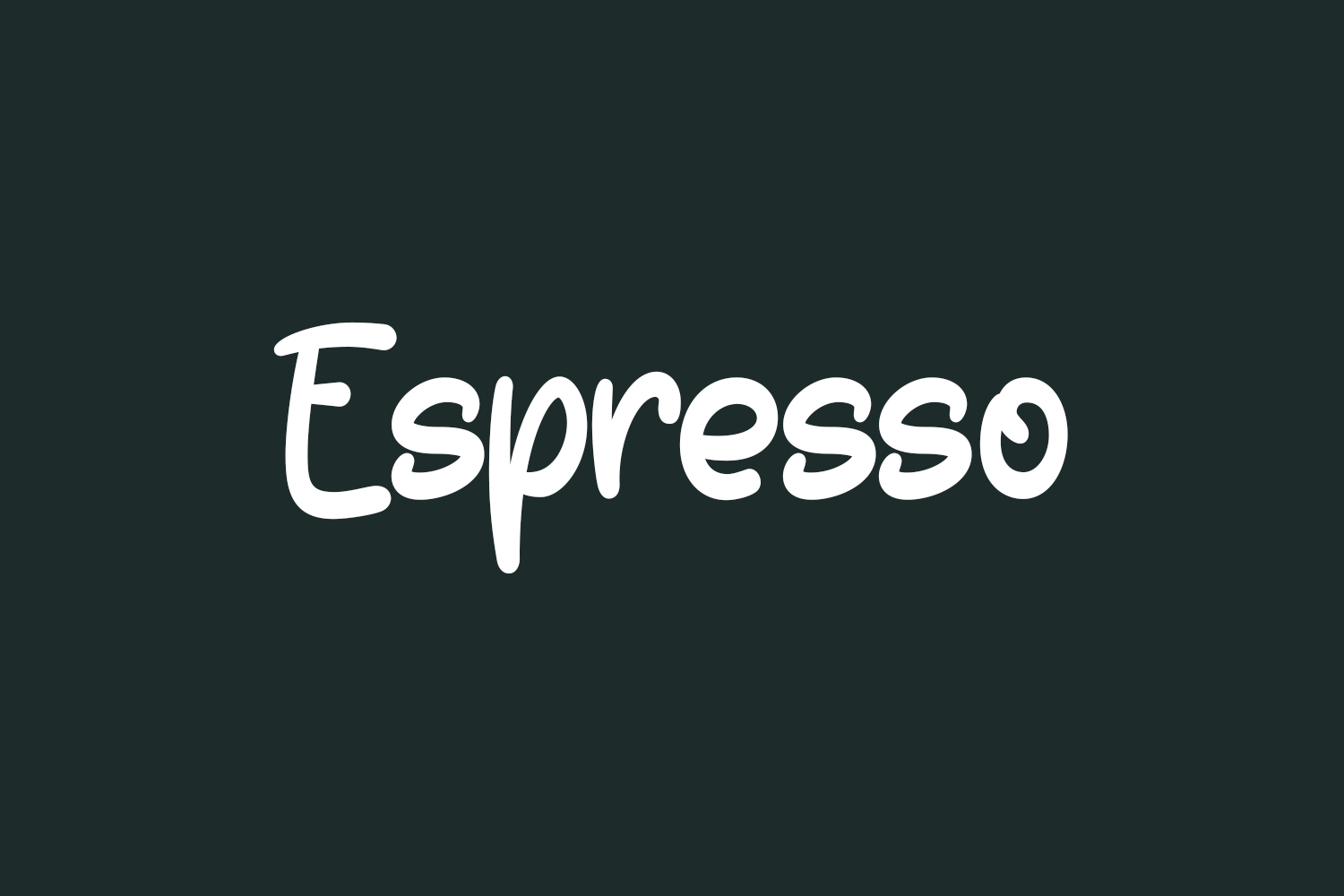
Espresso Free Font offers a delicate touch with its simple lettering, making it an ideal choice for chalkboard quotes and educational materials. Its authentic appearance adds a personal and realistic touch to your designs, enhancing their overall appeal. Download the font for free if you need it for personal use or purchase the full version for commercial use.